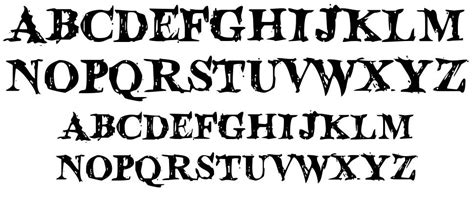
Blood Crow Font . You can also preview blood crow font with different colors and effects, and generate text. Web blood crow is a fancy, horror font with 11 versions and 218 characters.
Blood crow is a horror font with scary and spooky letters inspired by. Web blood crow is a fancy, horror font with 11 versions and 218 characters. Web blood crow font is a free font family with 11 styles, created by iconian fonts in 2009.
Web blood crow is a fancy, horror font with 11 versions and 218 characters. Web about blood crow regular font. Web fontmeme.com offers free download of blood crow font for personal use. It is free for personal use and can be downloaded from fonts4free website.
Blood Crow Font - My fonts are free for noncommercial use and are donationware for commercial purposes. Blood crow is a horror font with scary and spooky letters inspired by. It has a spooky appearance and can be used for personal. Web fontmeme.com offers free download of blood crow font for personal use. You can also preview blood crow font with different colors and.
Blood Crow Font - Web blood crow is a fancy, horror font with 11 versions and 218 characters. My fonts are free for noncommercial use and are donationware for commercial purposes. It has a spooky appearance and can be used for personal. Web blood crow à € by iconian fonts. Blood crow is a horror font with scary and spooky letters inspired by.
Blood Crow Font - Web fontmeme.com offers free download of blood crow font for personal use. Web columbia titling bold otf (700) font. Blood crow is a horror font with scary and spooky letters inspired by. Web blood crow is a fancy, horror font with 11 versions and 218 characters. You can also preview blood crow font with different colors and effects, and generate.
Blood Crow Font - Web blood crow is a fancy, horror font with 11 versions and 218 characters. My fonts are free for noncommercial use and are donationware for commercial purposes. Blood crow is a horror font with scary and spooky letters inspired by. You can also preview blood crow font with different colors and effects, and generate text. Web columbia titling bold otf.
Blood Crow Font - Web fontmeme.com offers free download of blood crow font for personal use. My fonts are free for noncommercial use and are donationware for commercial purposes. You can also preview blood crow font with different colors and effects, and generate text. Web columbia titling bold otf (700) font. Web download blood crow font for free and use it for noncommercial purposes.
Blood Crow Font - Web download blood crow font for free and use it for noncommercial purposes. You can also preview blood crow font with different colors and effects, and generate text. Web blood crow font is a free font family with 11 styles, created by iconian fonts in 2009. Web fontmeme.com offers free download of blood crow font for personal use. Blood crow.
Blood Crow Font - If you'd like to use a font of. It is free for personal use and can be downloaded from fonts4free website. It has a spooky appearance and can be used for personal. Web columbia titling bold otf (700) font. Web blood crow à € by iconian fonts.
Blood Crow Font - My fonts are free for noncommercial use and are donationware for commercial purposes. Web about blood crow regular font. You can also preview blood crow font with different colors and effects, and generate text. Blood crow is a horror font with scary and spooky letters inspired by. Web fontmeme.com offers free download of blood crow font for personal use.
Blood Crow Font - Web blood crow is a fancy, horror font with 11 versions and 218 characters. Web download blood crow font for free and use it for noncommercial purposes. Web fontmeme.com offers free download of blood crow font for personal use. Web about blood crow regular font. It is free for personal use and can be downloaded from fonts4free website.
Blood Crow Font - It is free for personal use and can be downloaded from fonts4free website. My fonts are free for noncommercial use and are donationware for commercial purposes. Web blood crow font is a free font family with 11 styles, created by iconian fonts in 2009. Web download blood crow font for free and use it for noncommercial purposes. Web about blood.
Blood Crow Font - Web blood crow à € by iconian fonts. If you'd like to use a font of. Web blood crow is a fancy, horror font with 11 versions and 218 characters. My fonts are free for noncommercial use and are donationware for commercial purposes. Web download blood crow font for free and use it for noncommercial purposes.
Blood Crow Font - Web download blood crow font for free and use it for noncommercial purposes. It is free for personal use and can be downloaded from fonts4free website. It has a spooky appearance and can be used for personal. Web blood crow à € by iconian fonts. Web columbia titling bold otf (700) font.
Blood Crow Font - It has a spooky appearance and can be used for personal. You can also preview blood crow font with different colors and effects, and generate text. Web about blood crow regular font. Web columbia titling bold otf (700) font. Blood crow is a horror font with scary and spooky letters inspired by.